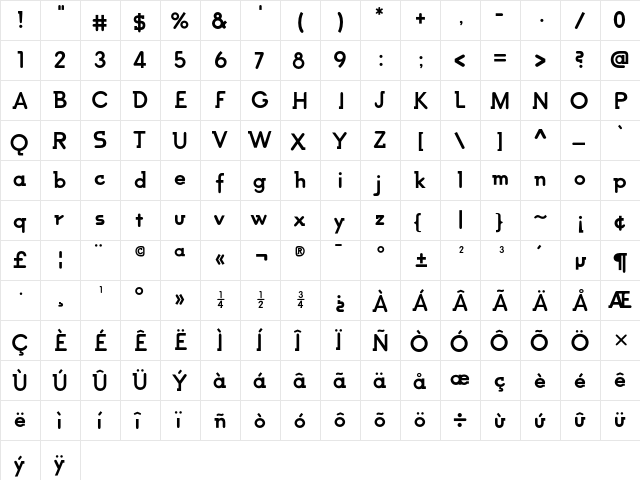
Concho 94
Design Context for Concho Typeface
Concho takes a measured approach to typography — its balanced proportions and neutral character make it a reliable workhorse for both digital and print work.